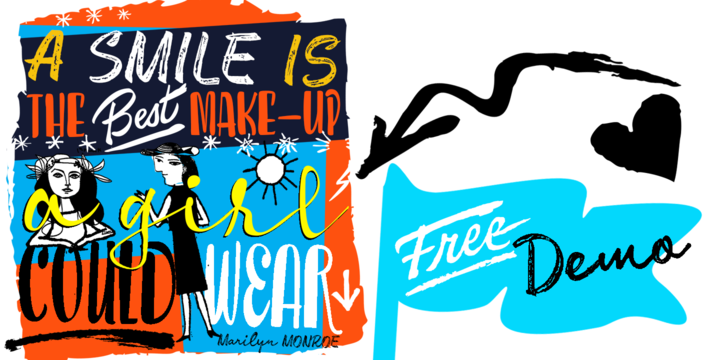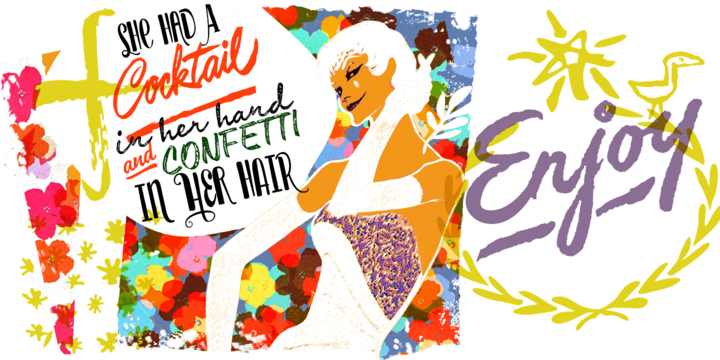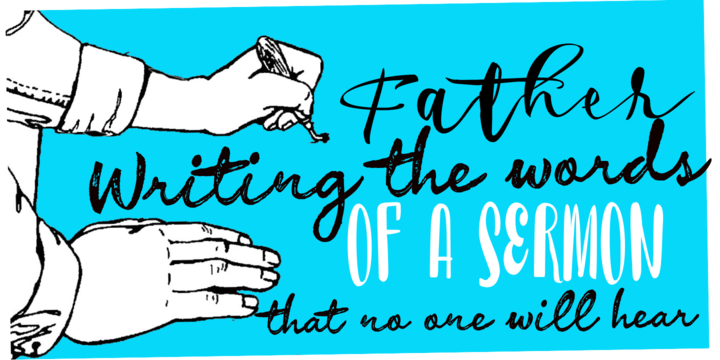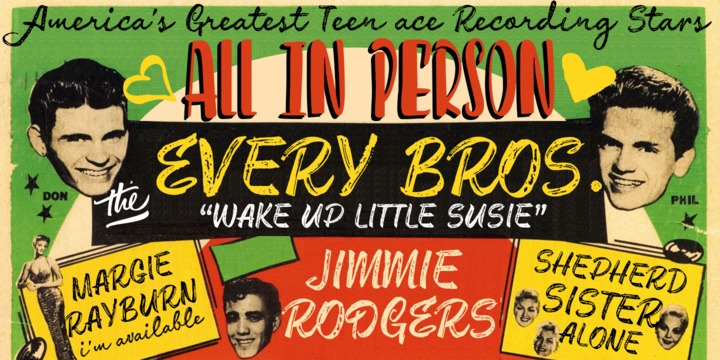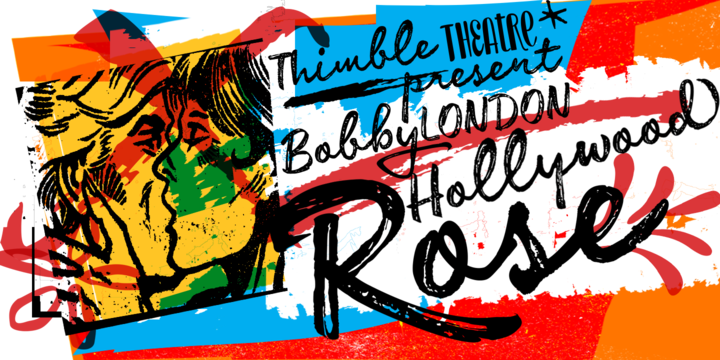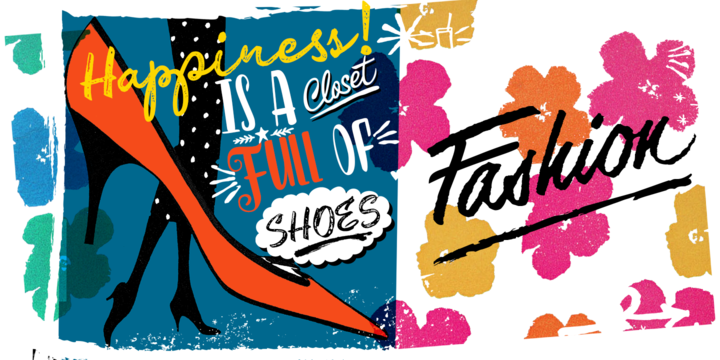
Enjoy is a font family designed by CFCG. When used to complement illustrations or spontaneous projects requiring organic fonts, in Enjoy you will find expressive attributes reflected in uppercase, lowercase and numbers written with brush and fluid ink. Download the free version beneath the previews!